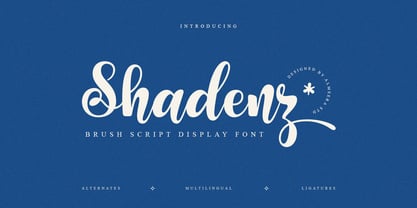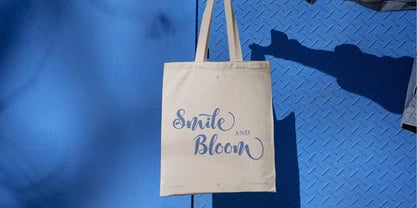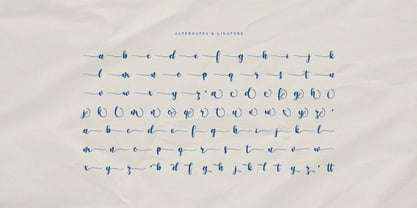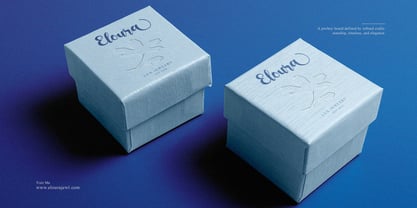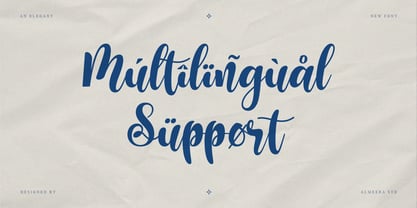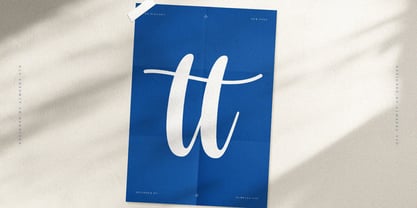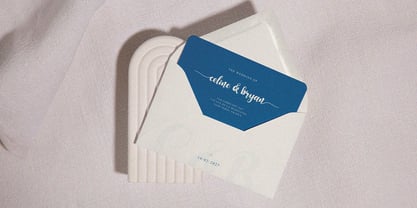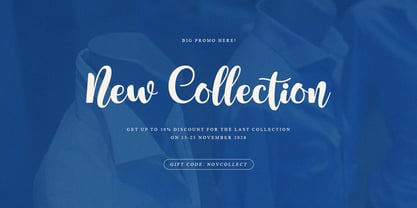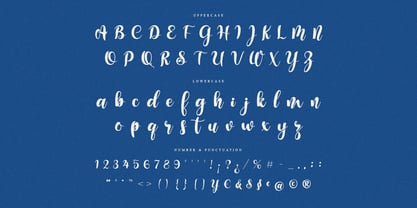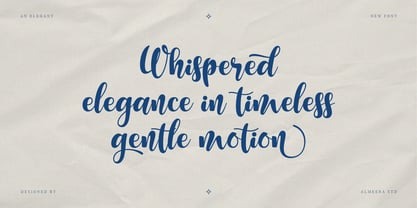
Shadenz
by Almeera Studio
The Shadenz Font Family was designed by Rinto Dwi Nugroho and published by Almeera Studio. Shadenz contains 1 styles. More about this family
Shadenz is a lively, expressive brush script that captures the spontaneous energy of lettering done at speed — fluid, confident, and full of character. Its strokes carry the tactile warmth of a real brush: thick downstrokes that swell with pressure, hairline upstrokes that lift with precision, and a natural bounce that makes every word feel hand-crafted.
What distinguishes Shadenz from a crowded category is its balance. It avoids the over-digitized stiffness of lesser brush fonts, and equally avoids the illegibility of pure calligraphy. The result is a typeface that reads clearly at large display sizes while retaining every ounce of its handmade soul.
Shadenz fits naturally in branding projects that need warmth and authenticity: coffee shop identity, artisan food labels, handmade goods packaging, lifestyle blogs, social media graphics, greeting card design, and creative personal branding. Its alternates and ligatures allow for custom lettering-style compositions without requiring actual lettering skill.
Brush Script Display style Alternates & Ligatures Multilingual support
Ideal for: coffee branding, artisan packaging, lifestyle brands, greeting cards, social media, personal branding.
Designers: Rinto Dwi Nugroho
Foundry: Almeera Studio